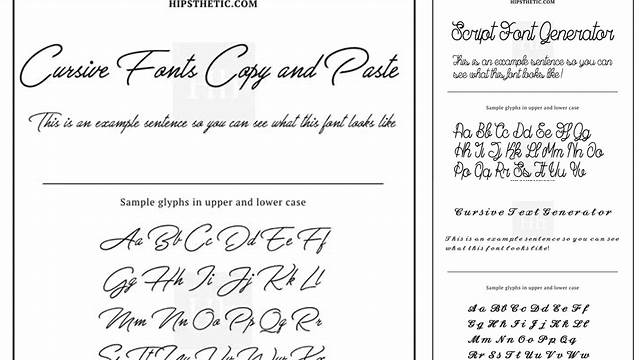
Effortless Cursive Font Copy & Paste: Your Easy Guide
Hey guys! Ever stumbled upon a really cool, elegant cursive font online and wished you could use it for your social media captions, your blog posts, or even just a quick text message? We've all been there! The struggle to find and implement those beautifully flowing letters can be a bit of a headache. But what if I told you it's actually super simple? This guide is all about making that happen. We're diving deep into the world of simple cursive fonts copy and paste so you can elevate your text game without breaking a sweat. Forget about complicated downloads or weird software installations; we're talking about instant style upgrades. Ready to make your words look as pretty as a handwritten letter? Let's get started!
Why Choose Simple Cursive Fonts for Your Text?
So, why are we even talking about simple cursive fonts in the first place? Well, think about it. In the vast digital ocean of plain text, a touch of cursive can make your words stand out. It adds a layer of personality, a hint of sophistication, or even a playful charm that standard fonts just can't replicate. Unlike overly elaborate scripts that can be hard to read, simple cursive fonts strike that perfect balance between elegance and legibility. They offer that touch of flair without sacrificing clarity. Whether you're crafting a heartfelt Instagram caption, designing a catchy announcement, or personalizing an email, using a simple cursive font instantly adds a touch of personalization and style. It's like adding a signature flourish to your digital communication. Plus, they can evoke a sense of tradition, romance, or a more formal tone when needed. The versatility is huge, guys! From birthday wishes to professional introductions, the right cursive font can set the mood and leave a lasting impression. So, before we jump into the how-to, understanding the why is key. These fonts aren't just pretty; they're powerful tools for communication and branding, making your message more impactful and memorable. They bridge the gap between the digital and the personal, giving your typed words a unique human touch that resonates with readers.
The Magic of Different Cursive Styles: Beyond Basic Script
When we talk about simple cursive fonts, it’s not just one style fits all, you know? There's a whole spectrum of gorgeousness out there! We've got the classic, elegant scripts that feel like they came straight from a vintage letter. Then there are the more modern, relaxed cursive fonts that are super friendly and approachable, perfect for casual chats. Some have a bouncy feel, others are more streamlined and clean. Think about those delicate, thin-lined fonts that whisper sophistication, or the slightly bolder ones that have a bit more presence. The key is that they remain easy to read. A good simple cursive font isn't meant to be a puzzle; it's meant to enhance. It's about finding that sweet spot where it looks undeniably cursive and stylish, but your grandma could still read it without squinting. Exploring these different styles allows you to perfectly match the vibe of your message. A wedding invitation might call for a more ornate, traditional cursive, while a fun weekend announcement could rock a playful, handwritten-style script. The diversity within simple cursive fonts means you have the power to fine-tune the aesthetic of your communication. Don't be afraid to experiment! Try out different types to see which one best conveys the emotion and intent behind your words. It’s this subtle nuance that can make a huge difference in how your message is received and perceived. Remember, the goal is always to add charm, not confusion. So, dive in and discover the diverse world of cursive scripts!
Finding Your Go-To Font Generator Websites
Alright, so how do we actually get our hands on these awesome fonts? The secret sauce lies in online font generator websites. These are your best friends for the simple cursive fonts copy and paste mission. Think of them as digital playgrounds where you type your text, choose a style, and poof – magic happens! Websites like LingoJam, YayText, FancyTextGenerator, and Instagram Fonts are super popular for a reason. They’re usually free, incredibly easy to use, and offer a massive library of different text styles, including tons of cursive options. You don't need any fancy software or design skills. Just head over to one of these sites, type in the word or phrase you want to transform, and scroll through the generated options. You'll see your text appear in various cursive styles. Found the one you love? Easy peasy! Just highlight the generated text, copy it (Ctrl+C or Cmd+C), and then paste it (Ctrl+V or Cmd+V) wherever you need it – your bio, a tweet, a blog post, you name it. It's that straightforward, guys. These generators work by using Unicode characters, which are basically special symbols that your device recognizes as letters, but they look like fancy fonts. This means you can paste them almost anywhere text is accepted, making the simple cursive fonts copy and paste process truly seamless. So, bookmark a couple of these sites; they'll become your secret weapon for instant text makeovers!
The Step-by-Step Process: From Typing to Styling
Let’s break down the simple cursive fonts copy and paste process step-by-step, because honestly, it’s ridiculously simple. First things first, you need to decide what text you want to style. Is it your username? A catchy phrase for your Instagram bio? A special announcement? Got it? Okay, next, you’ll open up your favorite web browser and navigate to one of those awesome font generator websites we just talked about. I usually go for [mention a specific popular generator, e.g., YayText] because it’s got a great selection. Once you're on the site, you'll see a text box. Type your chosen word or phrase into this box. Now for the fun part: scrolling! You’ll see your text magically reappear in dozens, sometimes hundreds, of different fonts and styles. Keep scrolling until you spot that perfect simple cursive font that catches your eye. It might be elegant, playful, or just plain pretty. Found it? Awesome! Now, simply highlight the generated text you want. You can do this with your mouse or finger, just like you would select any other text. Once it’s highlighted, copy it. On a computer, this is usually Ctrl+C (or Cmd+C on a Mac). On a phone, you’ll typically tap and hold the highlighted text, then select ‘Copy’ from the menu that pops up. The final step is pasting! Go to the platform or app where you want to use your newly styled text (e.g., your social media profile, a messaging app, a document). Tap and hold in the text field where you want to paste, and then select ‘Paste’ from the menu. Boom! Your text should now appear in that gorgeous cursive font. It’s that simple, guys. No downloads, no installations, just pure text transformation power at your fingertips. This simple cursive fonts copy and paste method is a game-changer for adding that personal touch.
Troubleshooting Common Issues with Cursive Fonts
While the simple cursive fonts copy and paste method is usually smooth sailing, sometimes, guys, things can get a little quirky. One common issue is that not all platforms or devices support all Unicode characters. This means that sometimes, your beautifully styled cursive text might show up as weird boxes or question marks (we call these 'tofu' characters!). If this happens, don't panic! It usually means the specific platform you're pasting into doesn't recognize that particular fancy character. The fix? Try a different font generator website or select a different cursive style from the same generator. Some styles use more common Unicode characters than others. Another thing to watch out for is consistency. If you're pasting multiple words or a longer sentence, make sure you copy and paste each word or segment individually if they are styled differently, or ensure the generator creates a consistent style for the whole phrase. Sometimes, mixing styles within one paste can lead to errors. Also, remember that these aren't